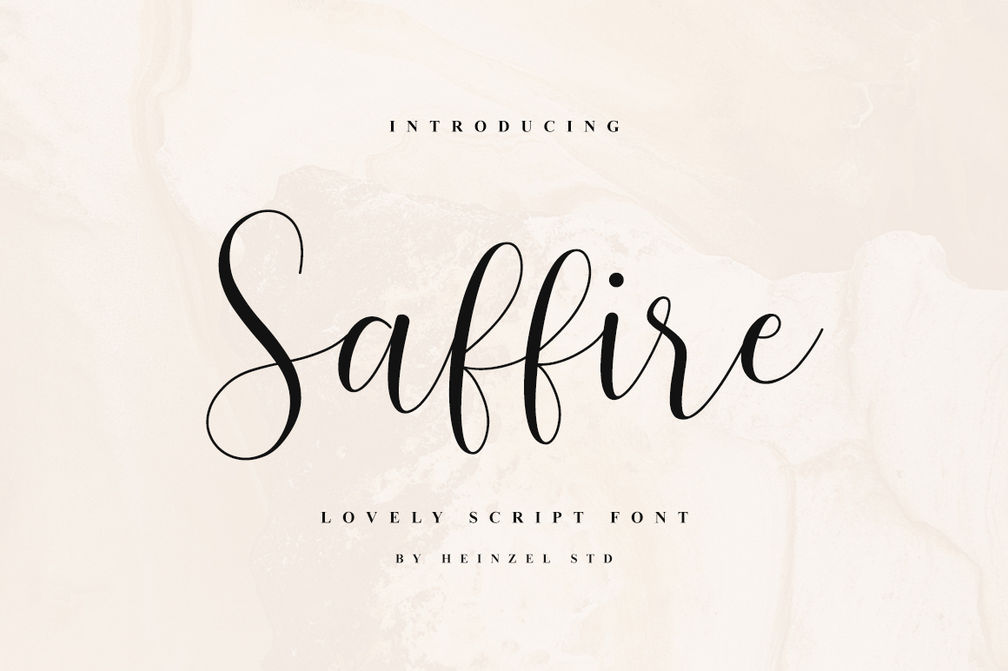
Saffire Script Font
Saffire is a lovely modern script font designed with elegance and versatility in mind. Featuring smooth curves, graceful swashes, and a handcrafted feel, this typeface is perfect for projects that need a touch of sophistication. Whether you’re designing logos, wedding invitations, greeting cards, business branding, social media posts, or product packaging, Saffire delivers a timeless handwritten look that stands out.
Created by Heinzel Std, this font offers uppercase, lowercase, numerals, punctuation, and multilingual support, making it a versatile choice for both personal and professional use. Its refined yet approachable style ensures your designs leave a lasting impression.
Bring your designs to life with the Saffire Script Font – the perfect blend of elegance and modern handwriting.